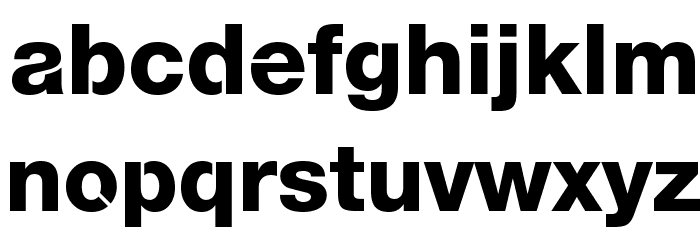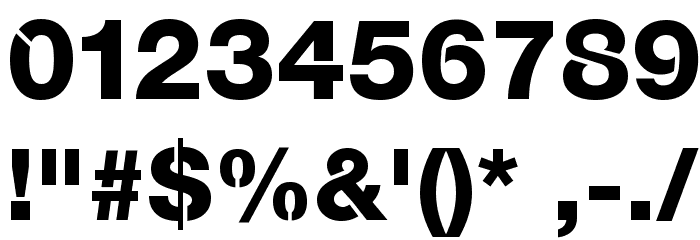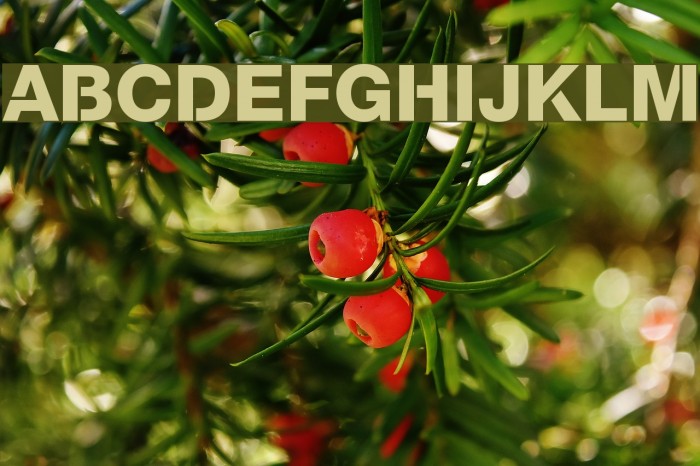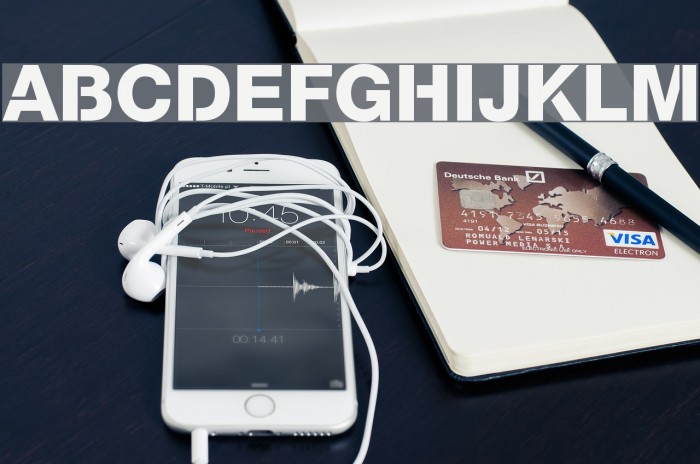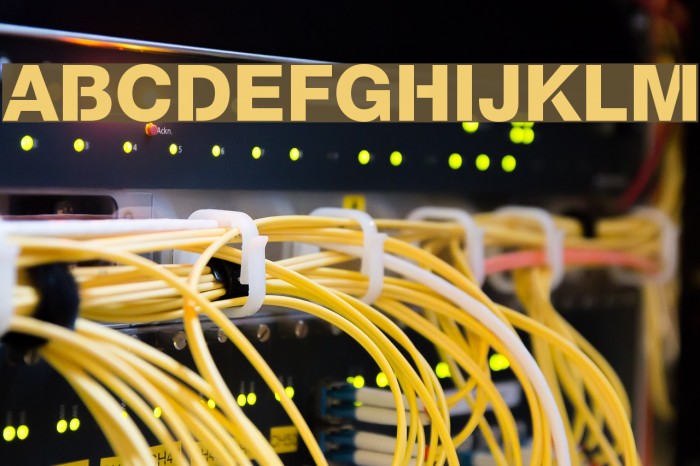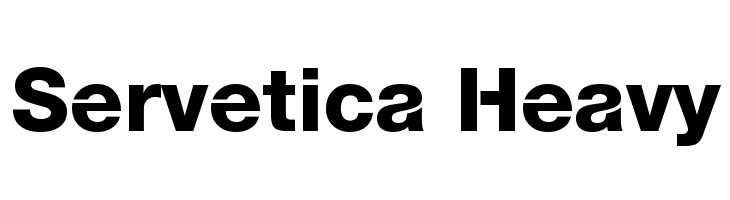
Servetica Heavy Font
This font features a bold and impactful design, characterized by thick, uniform strokes that convey strength and stability. The uppercase and lowercase letters are well-proportioned, with a consistent weight throughout. The numerals are clear and easy to read, maintaining the same boldness as the alphabetic characters. Special characters are distinct and maintain the overall robust style. The font's design is straightforward, making it suitable for a variety of applications where clarity and emphasis are needed.
A bold, impactful font with thick, uniform strokes.
- Font: Servetica Heavy
by cleanvertising - Weight: Heavy
- Proposed Projects: Ideal for headlines, posters, branding, and any project requiring strong visual impact.